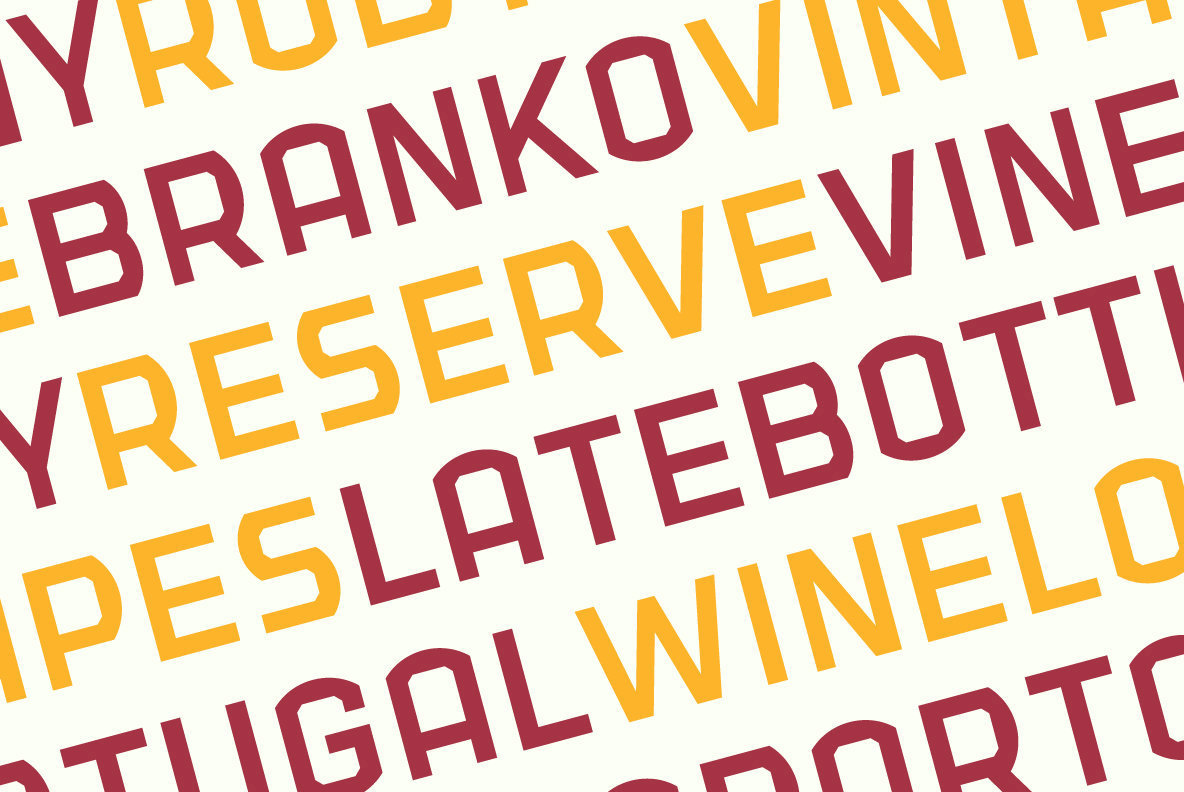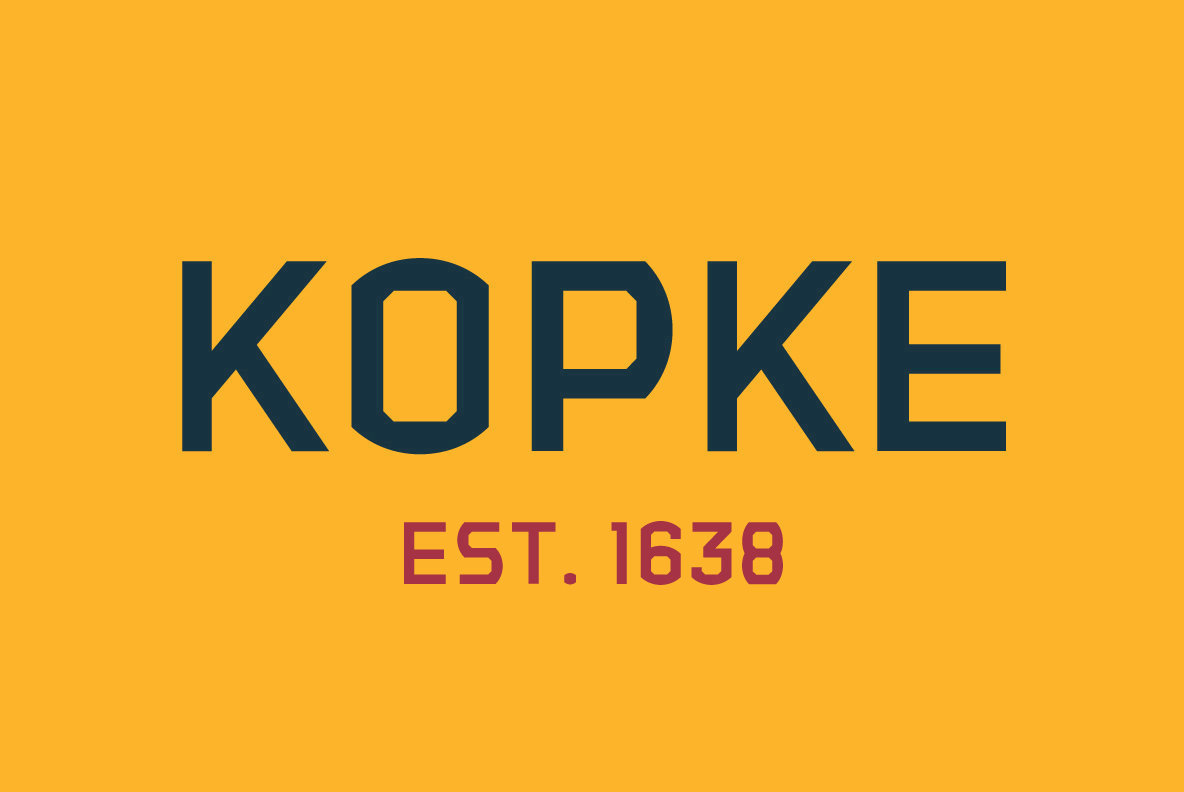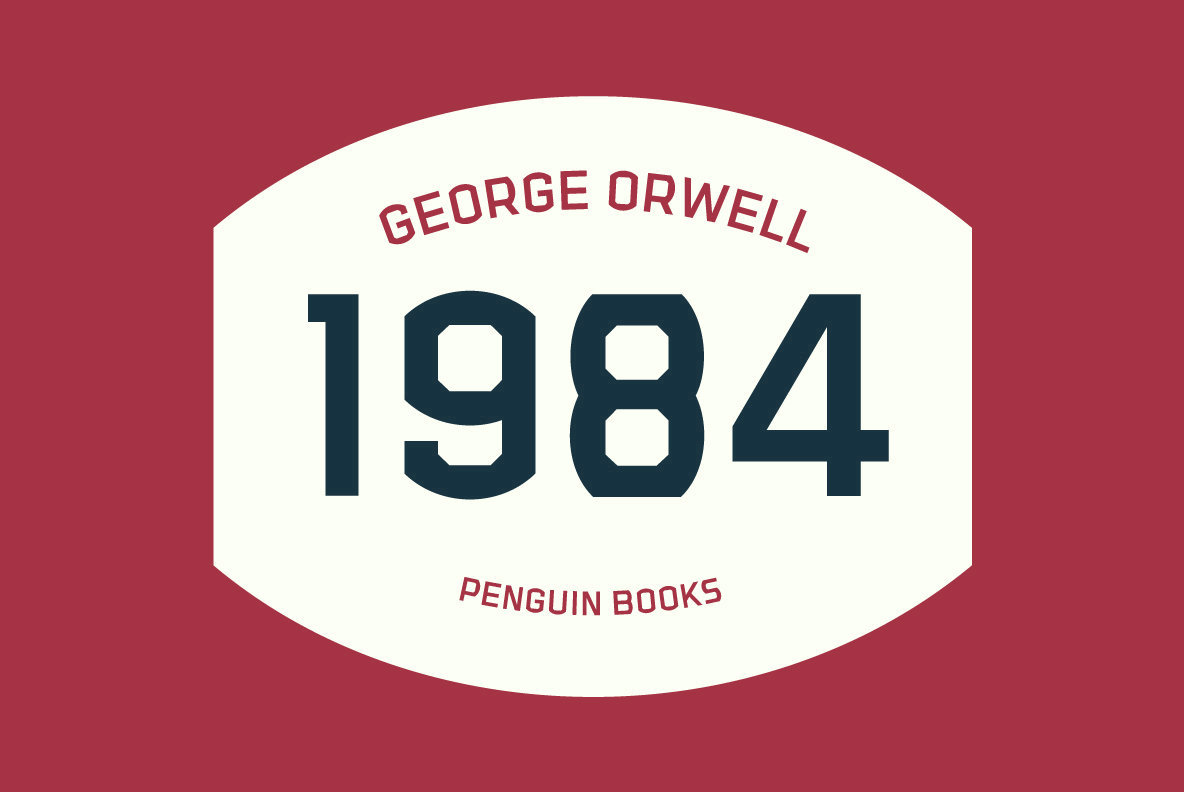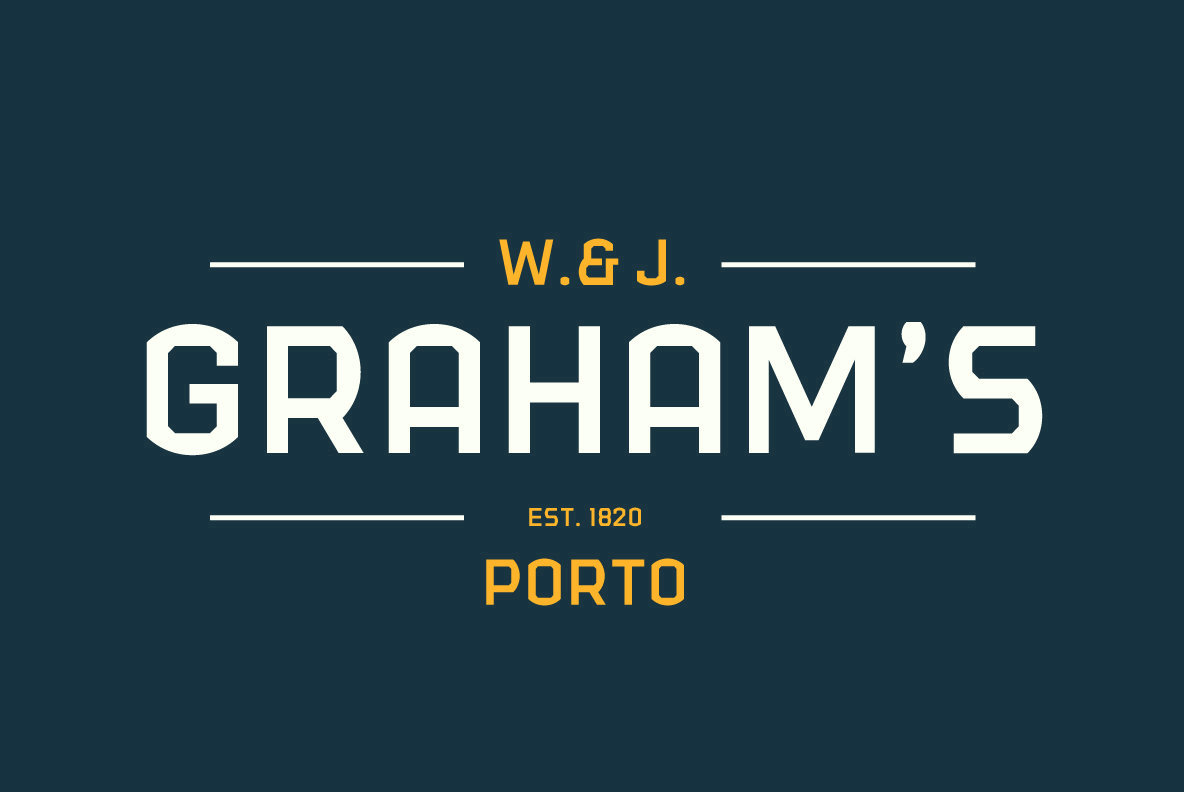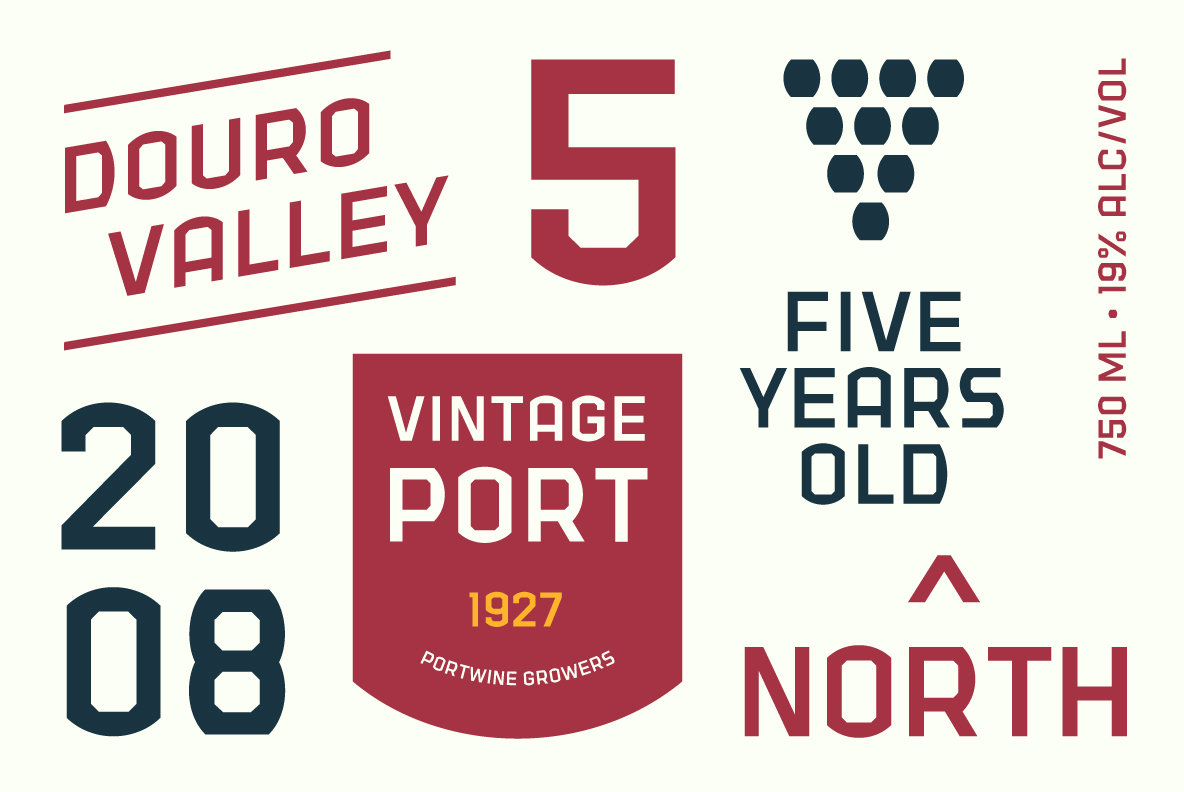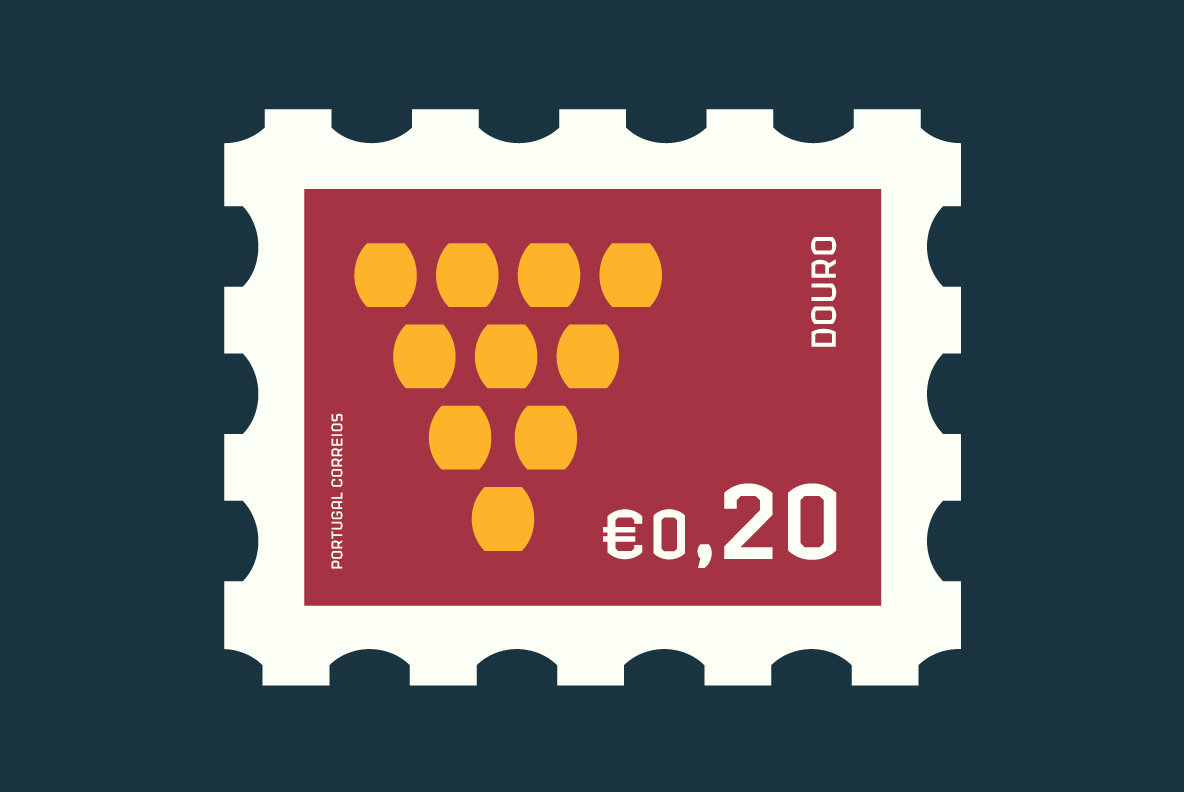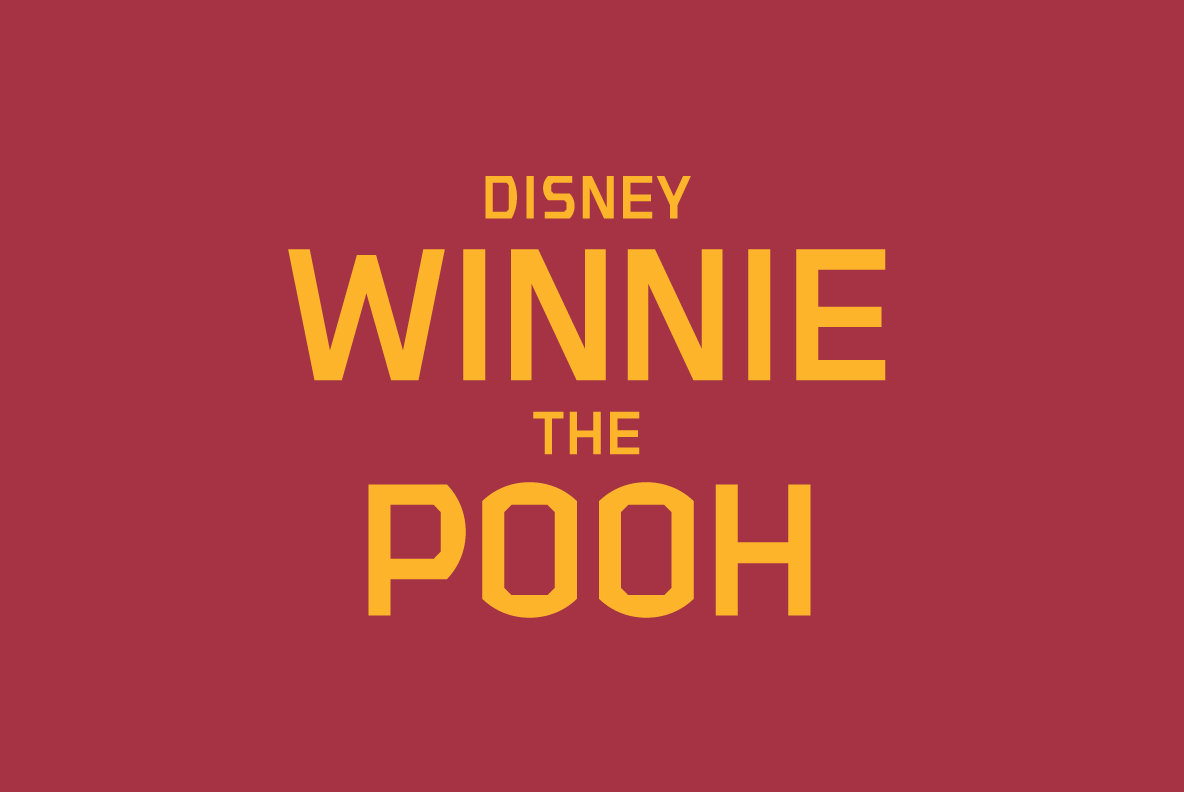
Ancora Font
Ancora
I’m happy to announce the complete version of Ancora, a typeface I designed back in 2013. Ancora is a sans serif typeface with a distinctive style, inspired by the imagery in the production of the famous Port wine, such as boats, barrels, grapes, and bottle labels. Use Ancora to add magazines, packaging, posters, stamps, brands and logos a new taste.